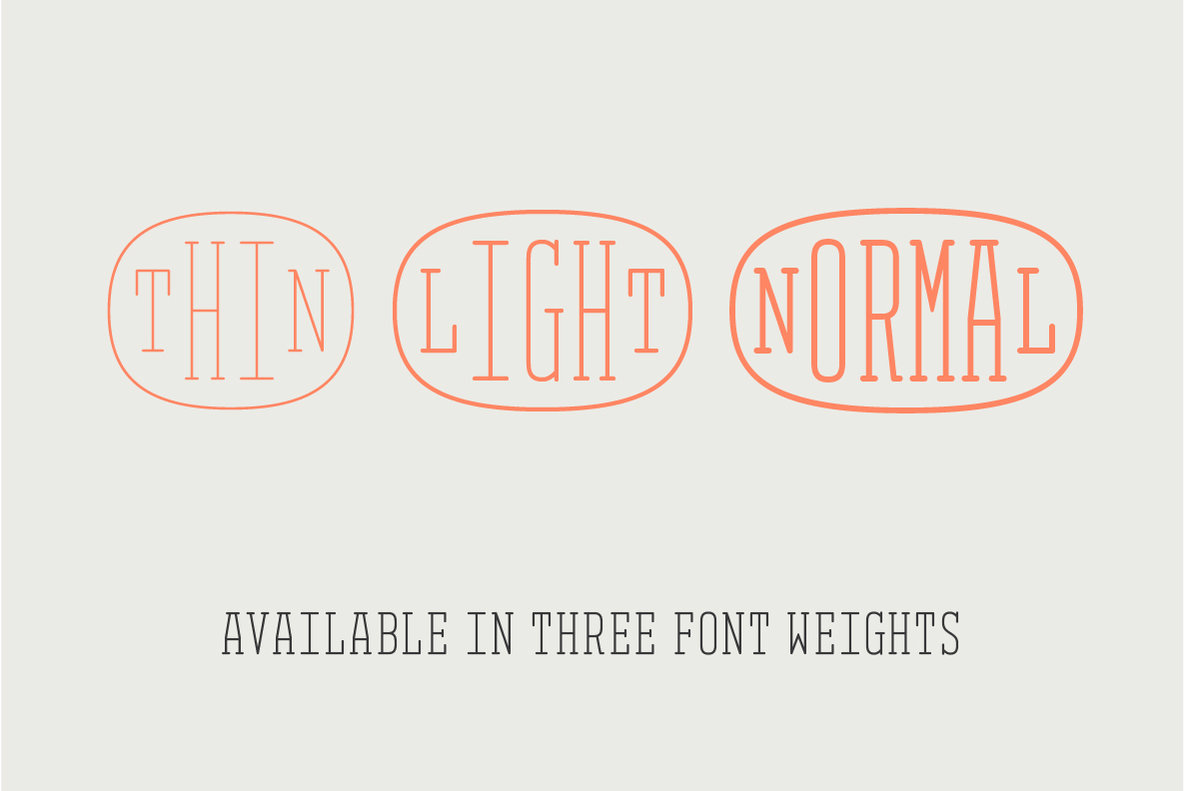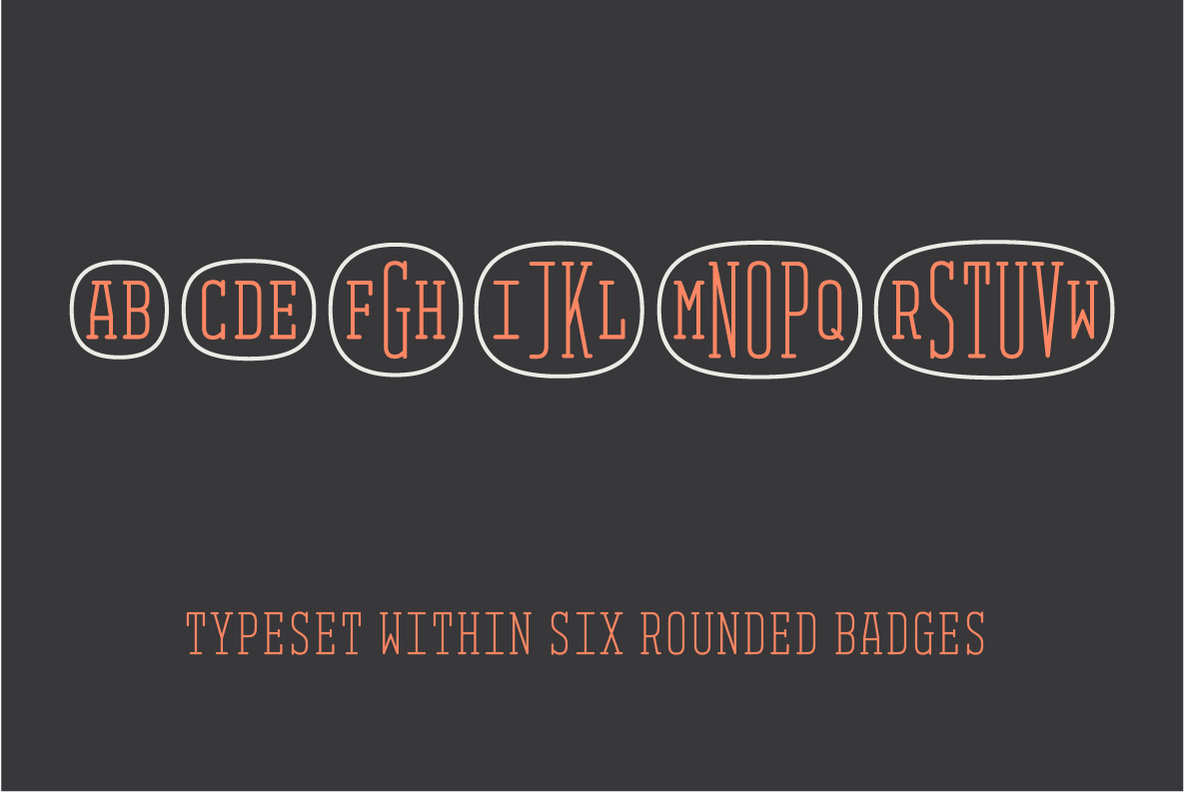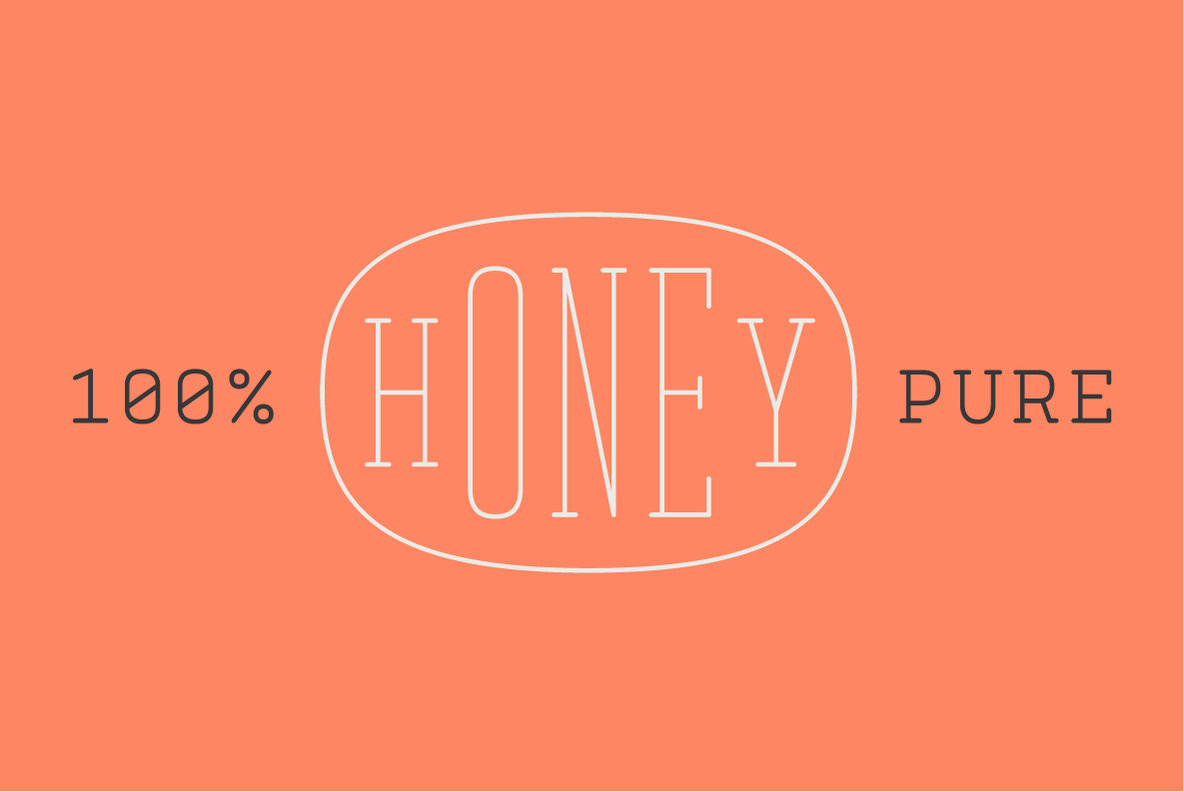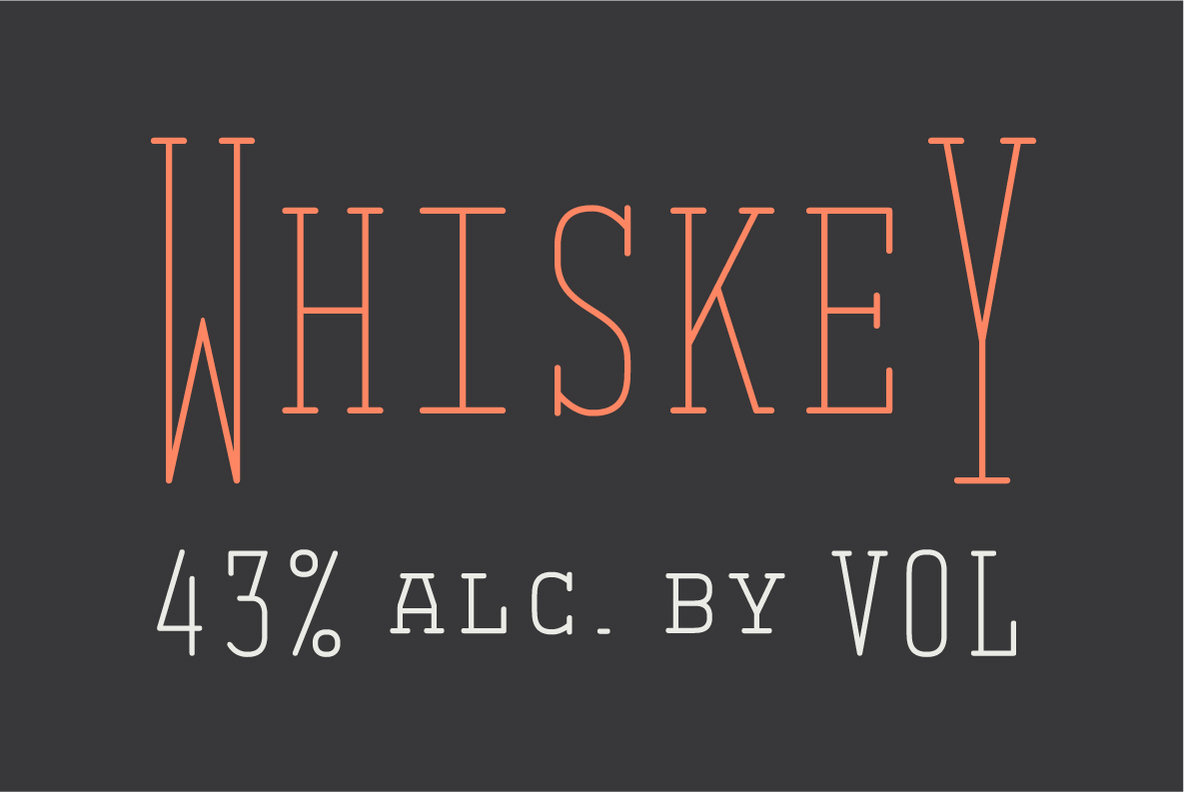
Ama Font
Ama is a monospaced serif typeface designed for creating monograms and rounded badges.
To create a monogram, type a parenthesis, bracket or brace (these are your different badge sizes) followed by any combination of uppercase, lowercase and/or small cap characters.
Ama is available in 3 weights—thin, light and normal—and includes support for most Latin languages. Check out Ama's sans-serif twin, Amo. http://ywft.us/2ee0c587e